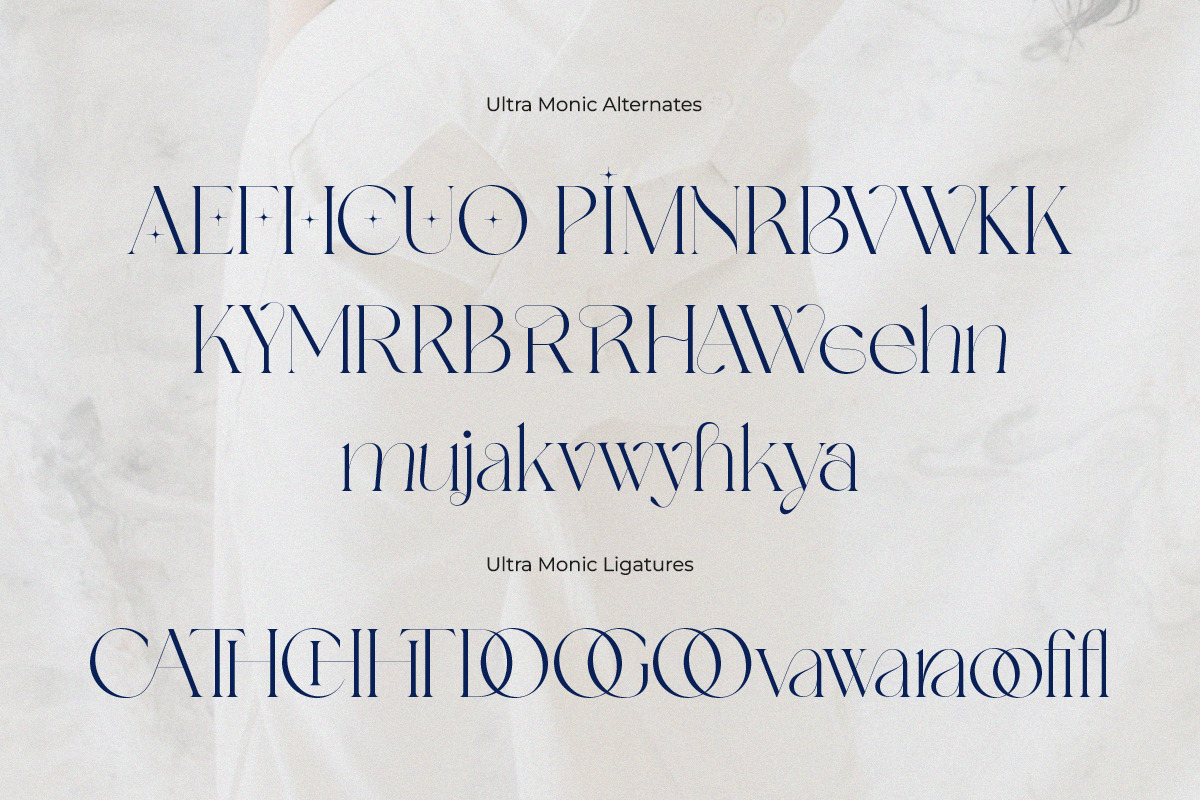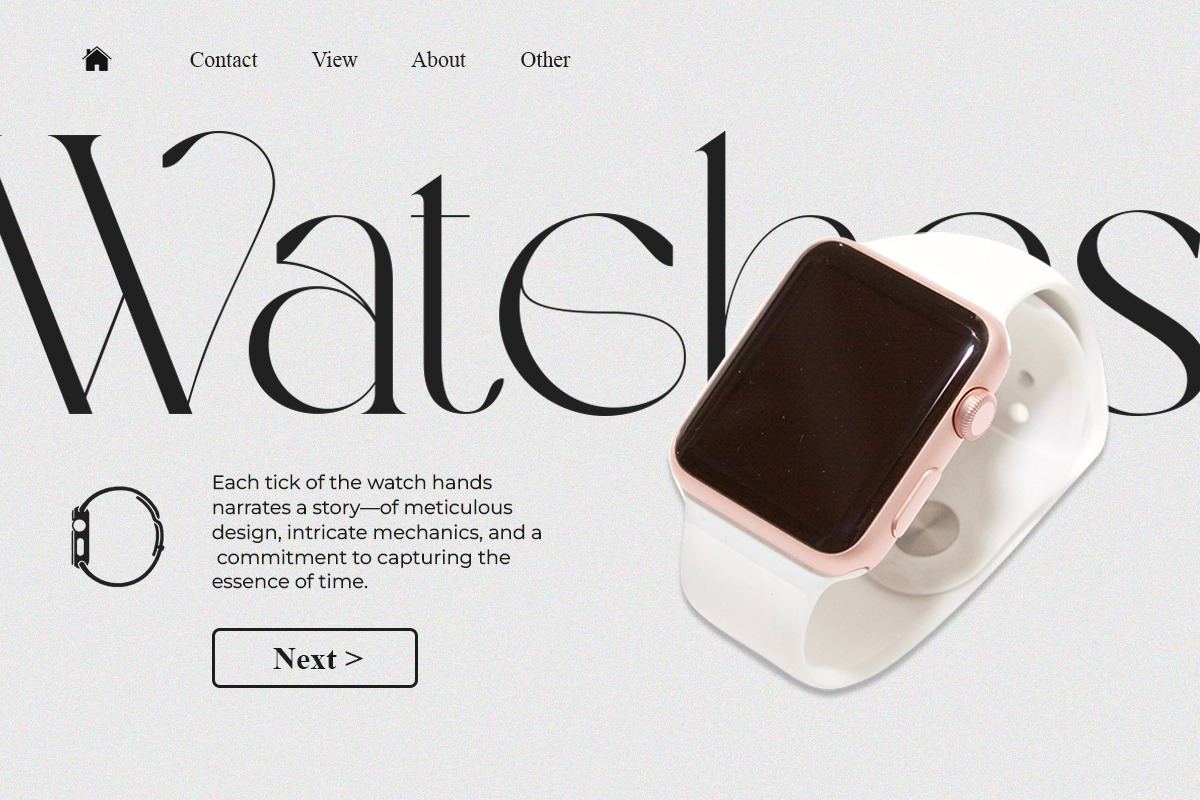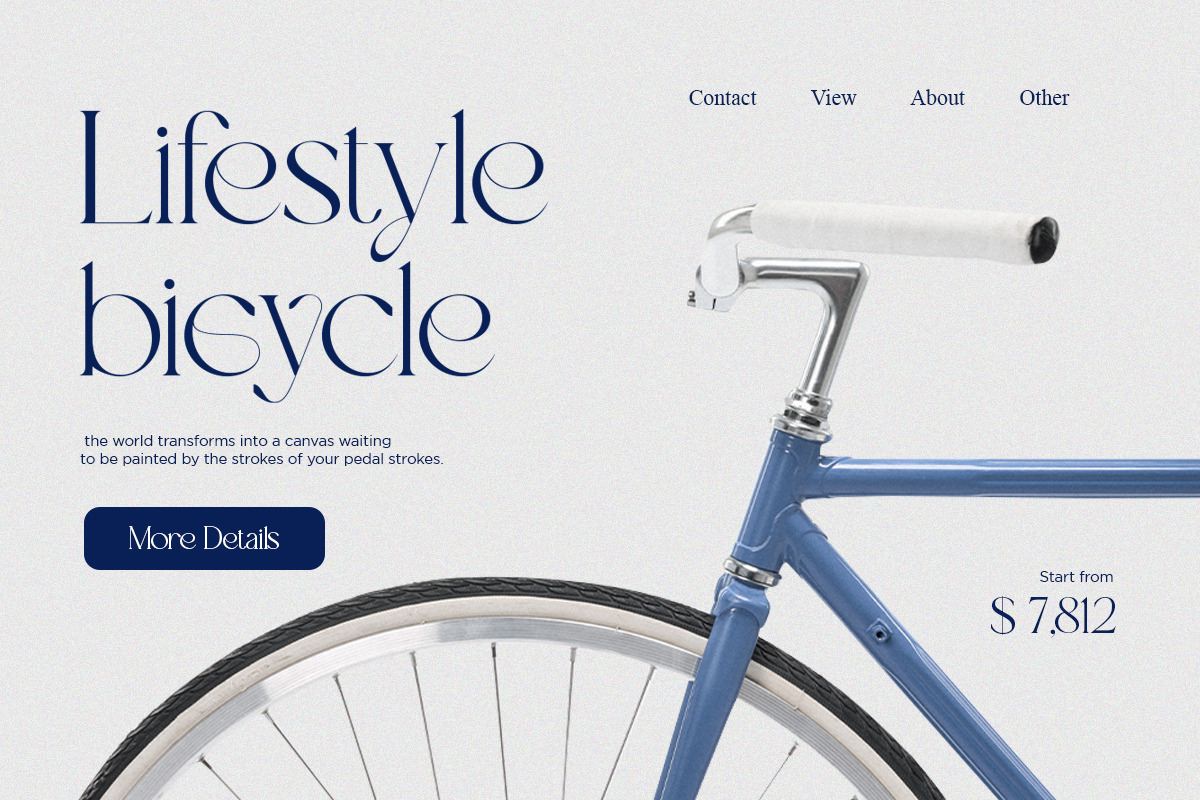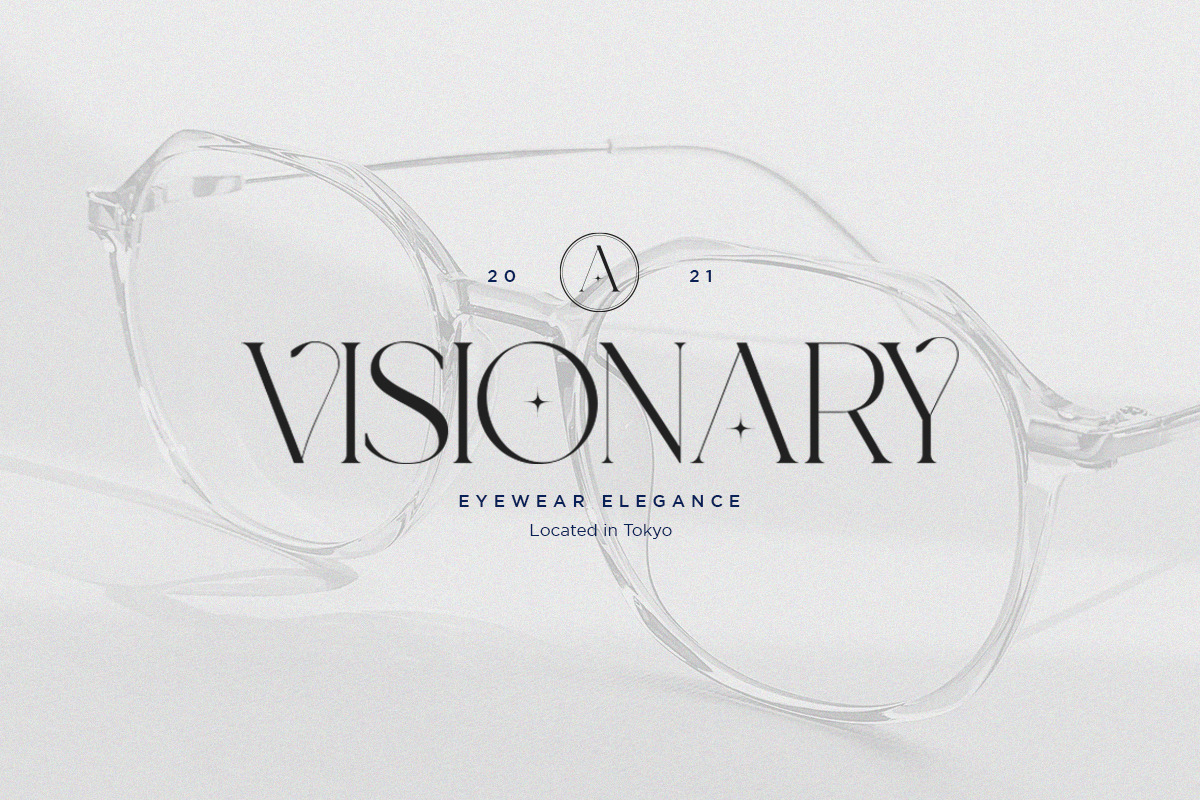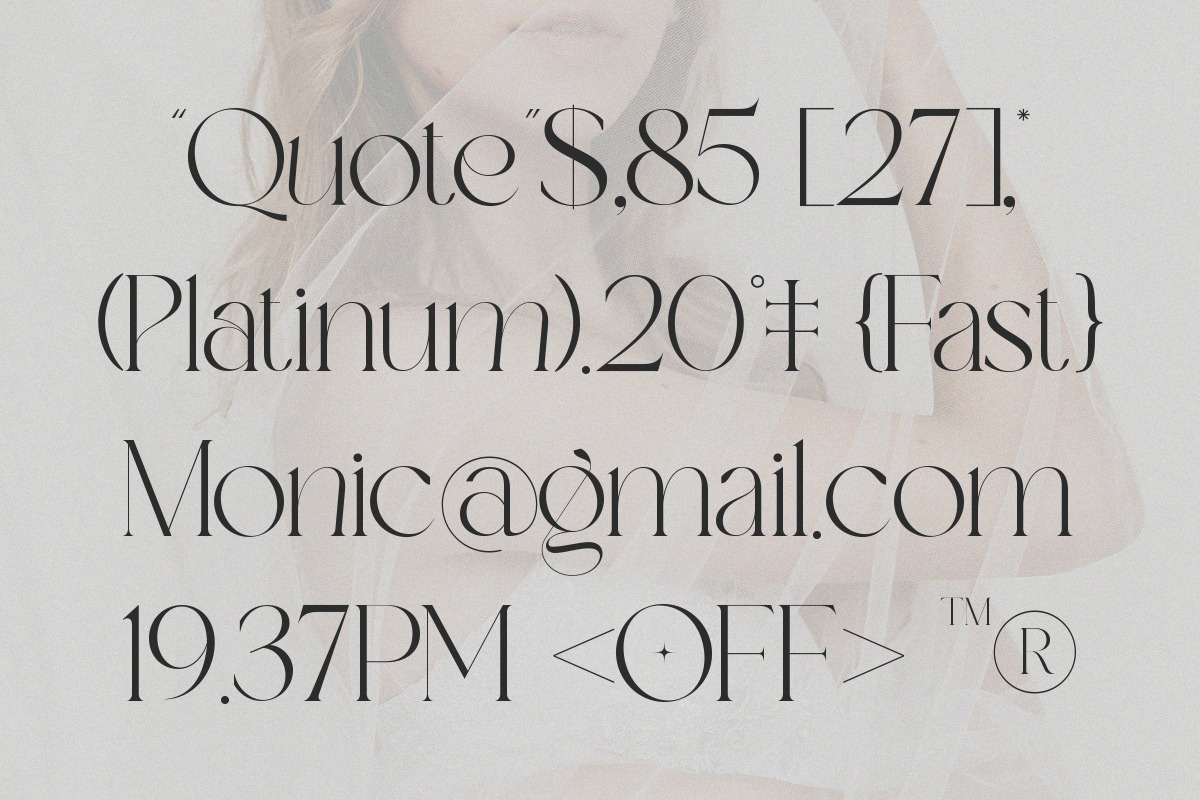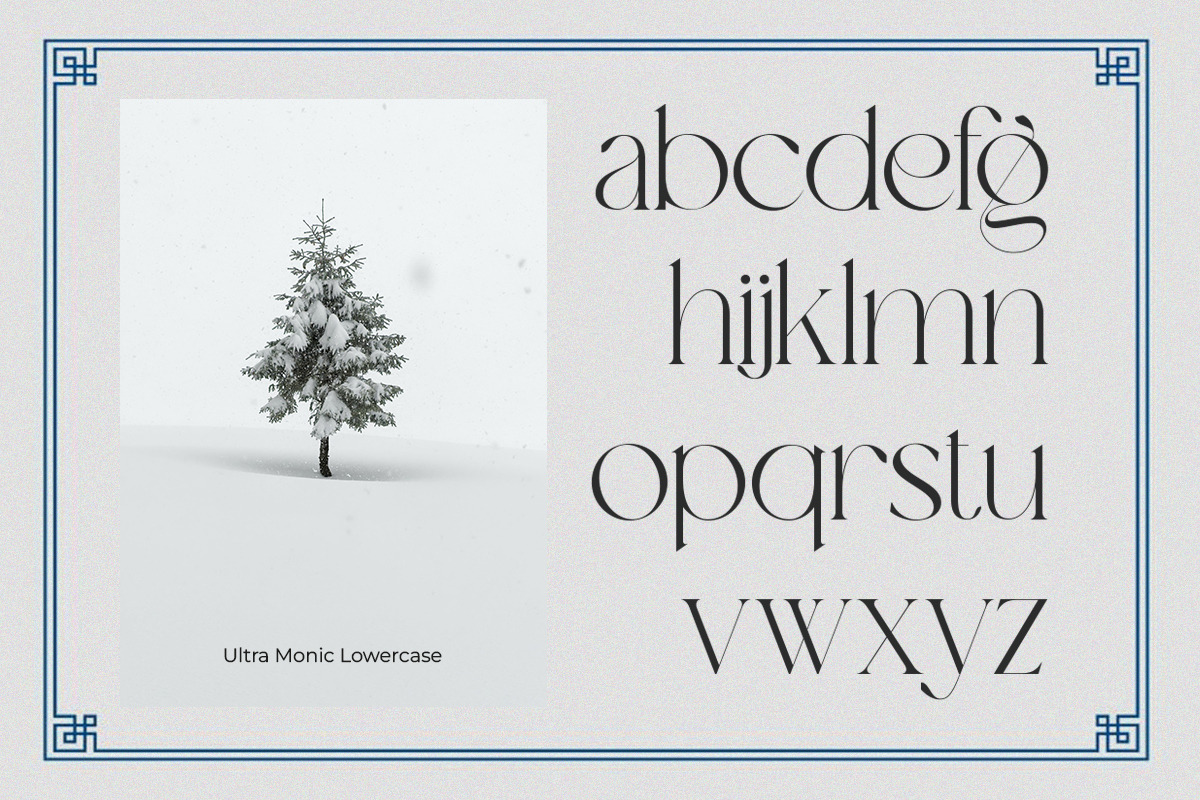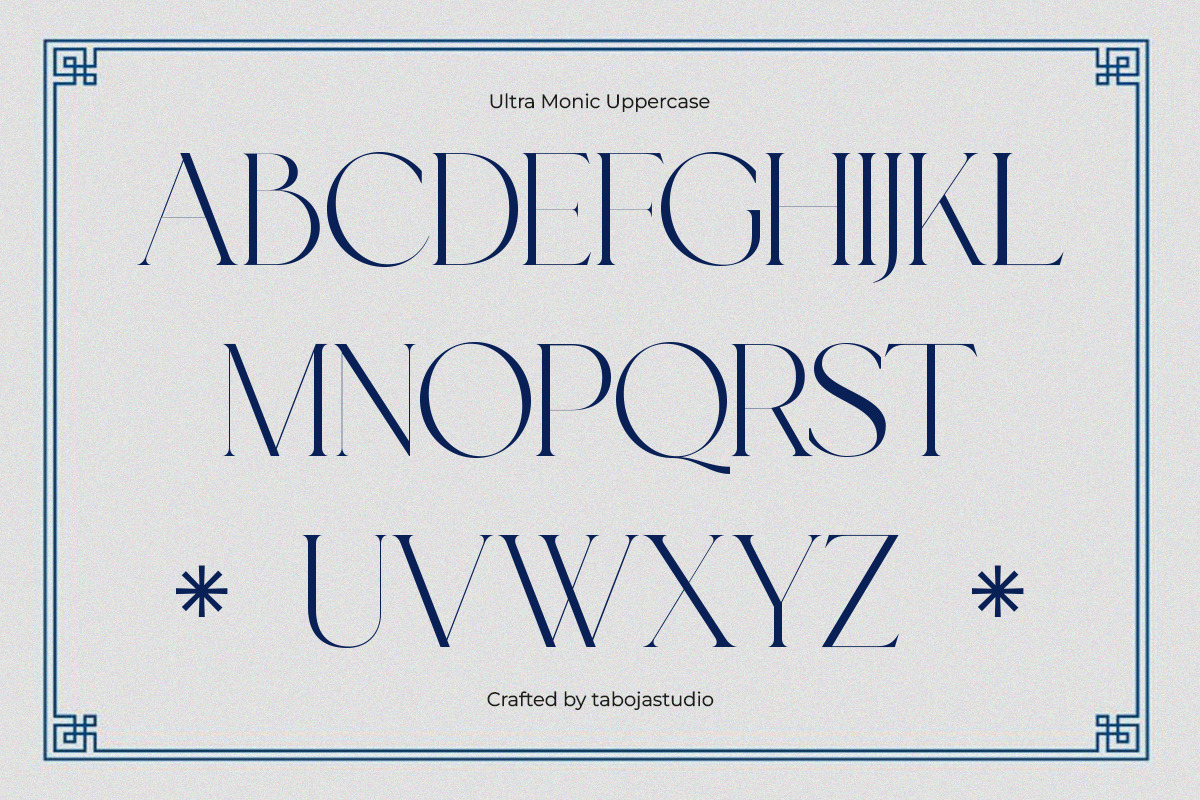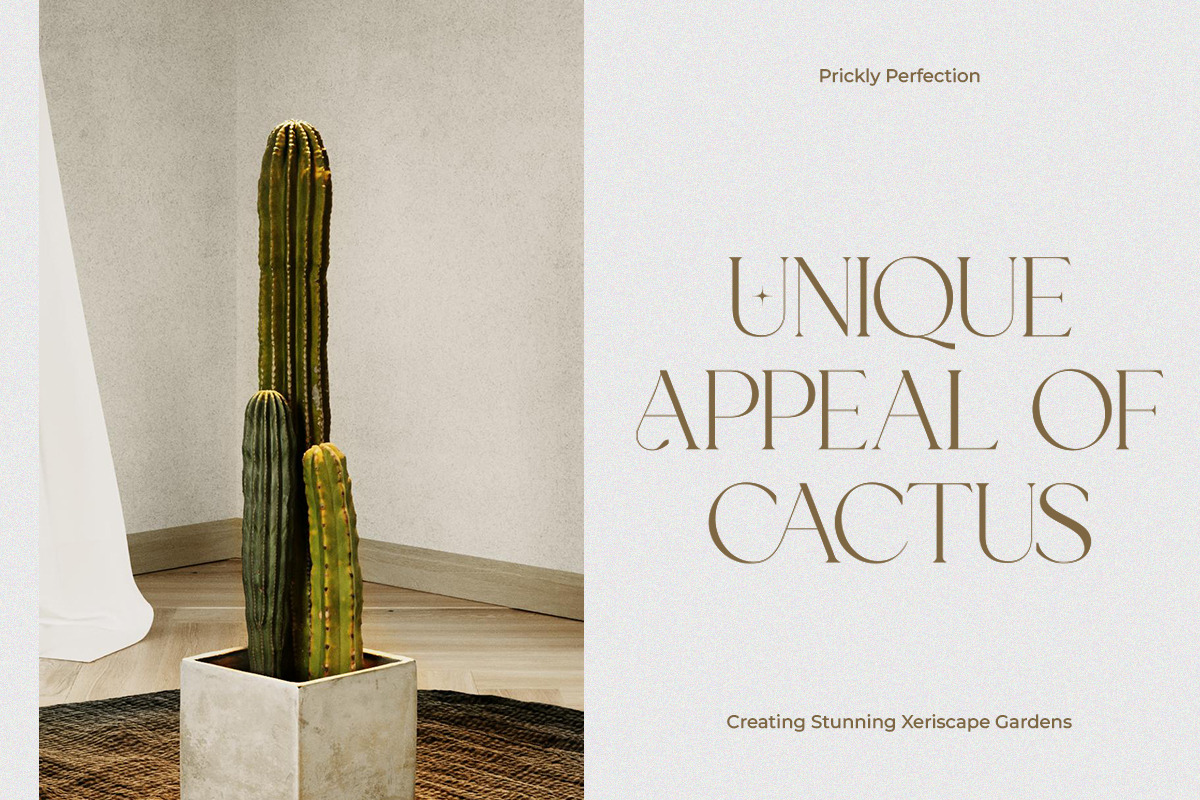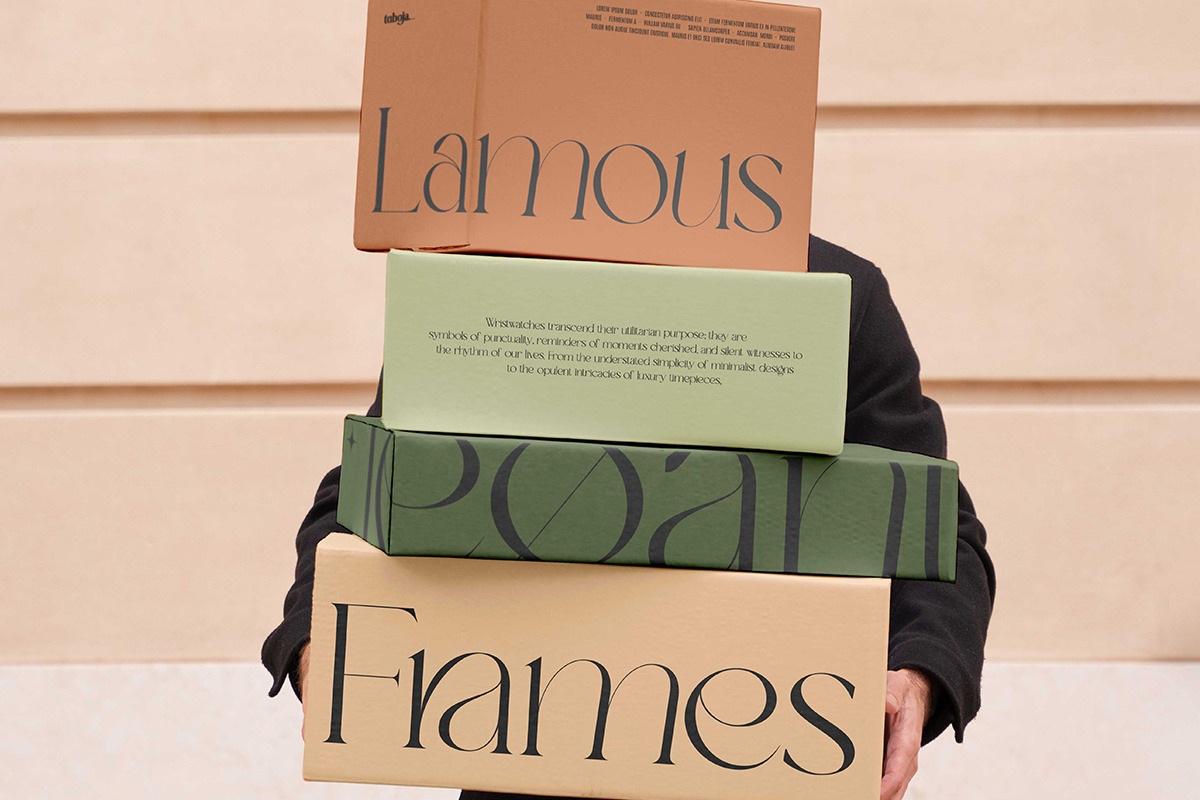
Ultra Monic | Serif Display
Ultra Monic serif font proudly radiates grace and tranquility. Each character is meticulously crafted, featuring delicate serifs and proportional details that enrich the overall aesthetic. Precision and elegance define every curve and angle, creating a classic and refined appearance.
The serif style of this font imparts a traditional nuance that remains relevant, while the typographic variations add a light touch of modernity. Its lines, both thin and bold, are arranged harmoniously to create a captivating visual balance.
Amore Font Features:
- Uppercase And Lowercase
- Alternates And Ligatures